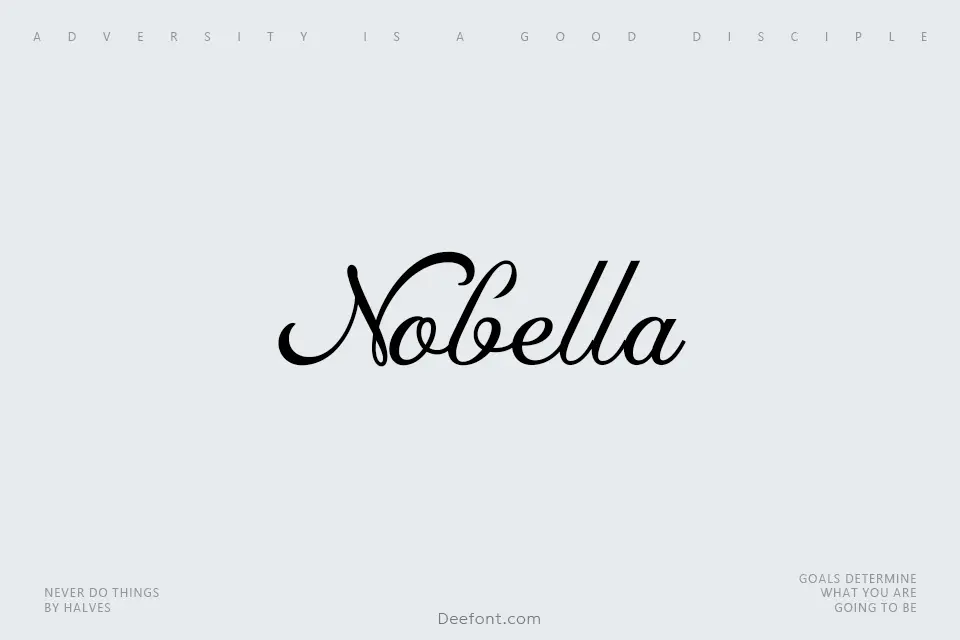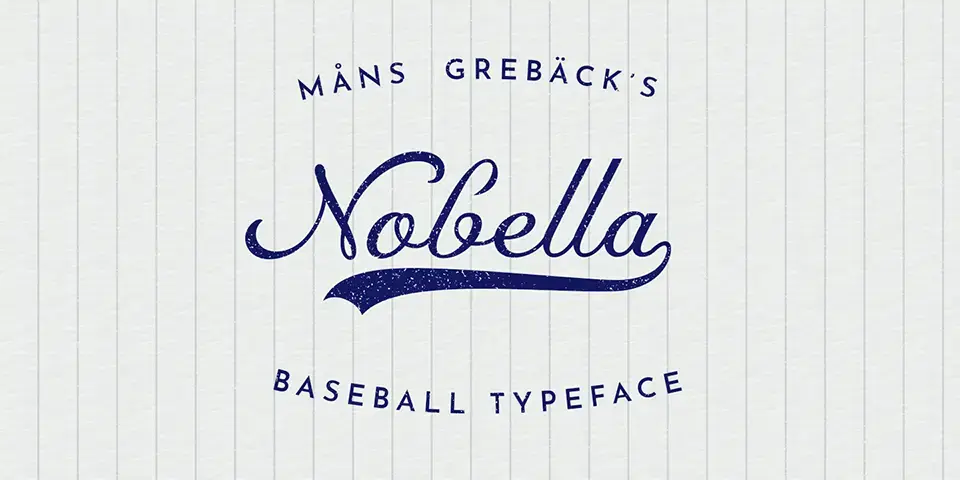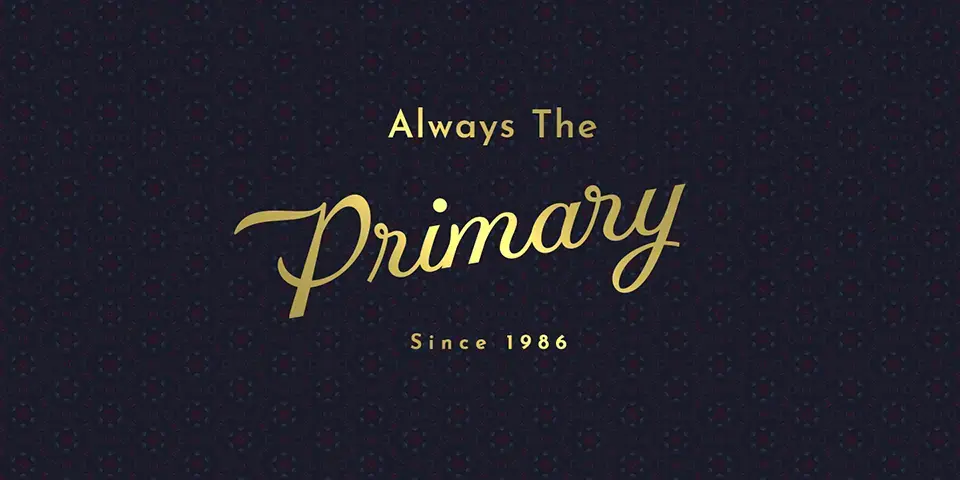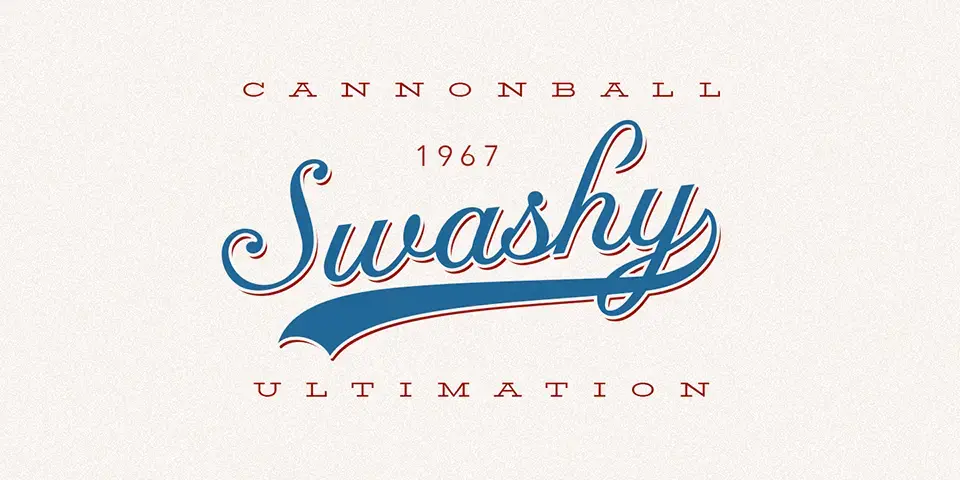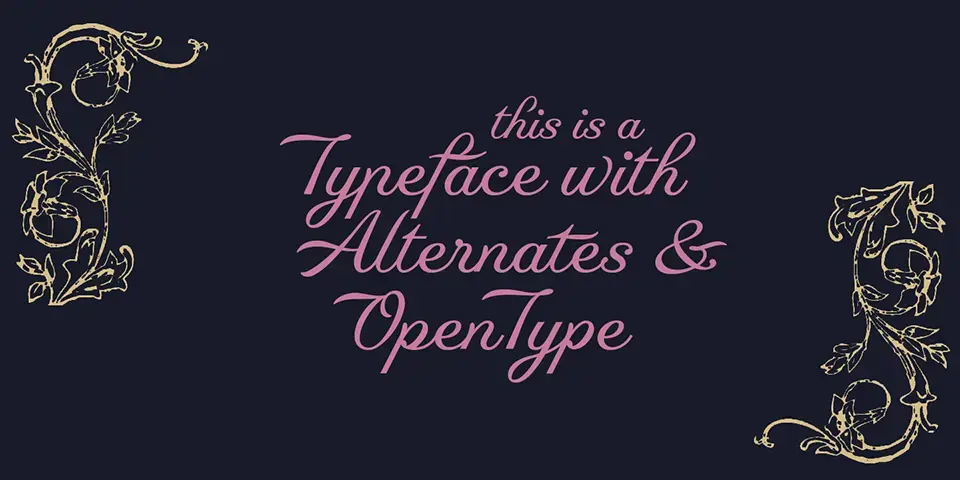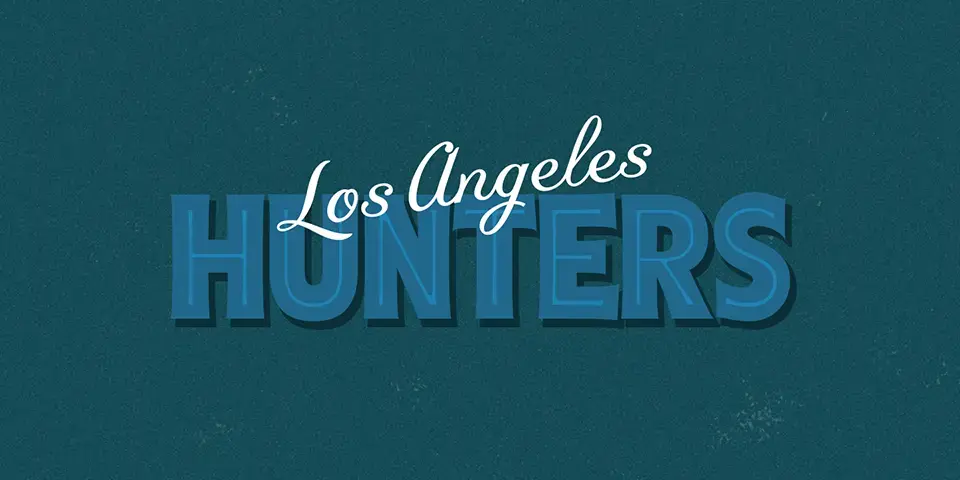
Nobella Font
Nobella is a flowing, mid-century script typeface with a timeless, classic feel. Its elegant letterforms and fluid strokes make it an ideal choice for sophisticated branding, logotypes, and sport-style graphics. Featuring beautiful decorative swashes, Nobella adds a touch of vintage charm and a creative, vivid appearance to any design project, from packaging to headlines.